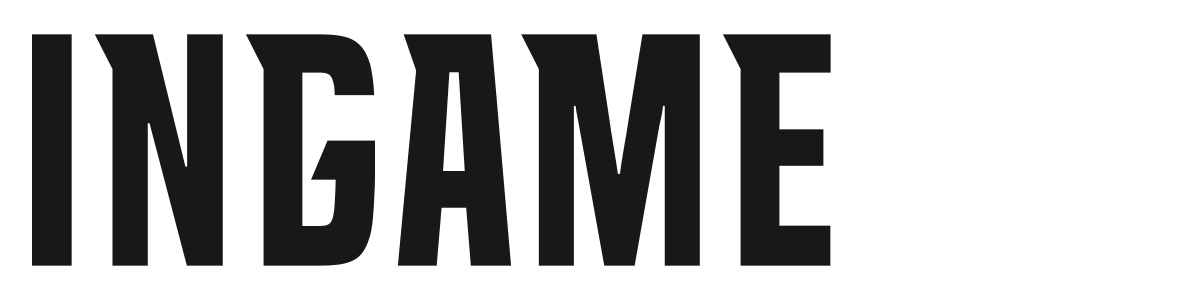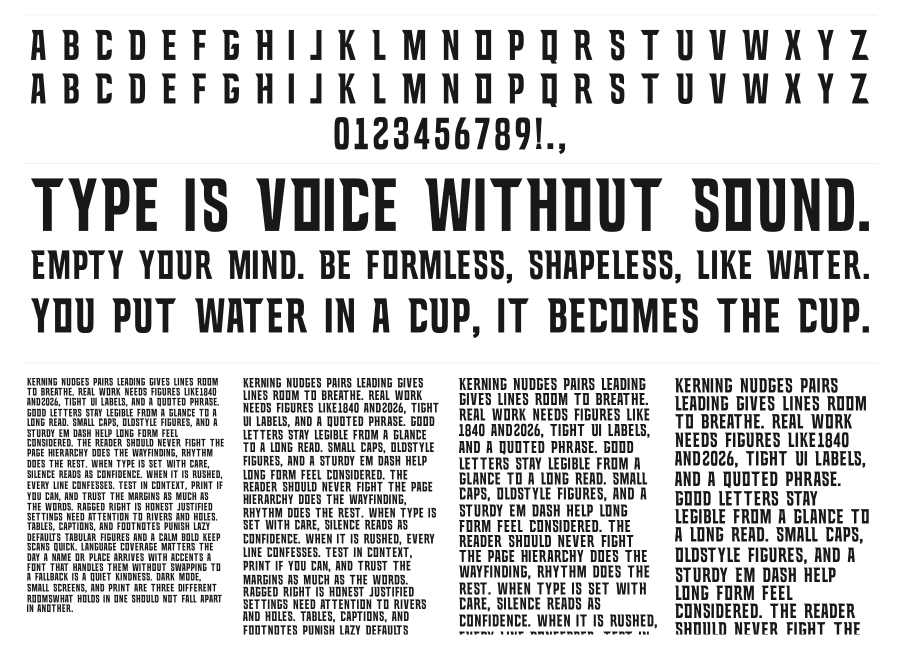
Ingame
Ingame is a heavily condensed bold sans-serif built for impact at large sizes. Subtle geometric notches cut into stroke junctions give it a gritty, retro-industrial character that sits somewhere between vintage sports typography and modern gaming aesthetics. At its best on posters, jersey lettering, and game UI headers.